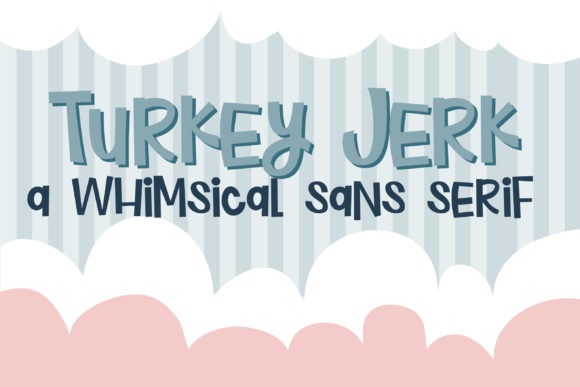
Inject some personality into your designs with Turkey Jerk Font, a whimsical sans serif font that oozes charm and playfulness. Crafted by the talented folks at Illustration Ink, this font is a breath of fresh air, perfect for adding a touch of fun and creativity to your projects.
Picture this: you're working on a poster for a local theater production, and you need a font that captures the lighthearted spirit of the show. Turkey Jerk Font steps up to the plate, delivering a cast of characters that dance and play across the page, inviting your audience to embark on a delightful journey. The playful curves and simple strokes create a visual symphony that's both captivating and easy on the eyes, ensuring your message shines through.
Or perhaps you're designing a children's book, and you want a font that sparks imagination and brings the story to life. Turkey Jerk Font is your trusty sidekick, transforming words into whimsical wonders that leap off the page. Its friendly and approachable demeanor makes it a perfect companion for tales of adventure, friendship, and magical lands.
The beauty of Turkey Jerk Font lies in its versatility. It's not just confined to posters and children's books; it's a font that thrives in diverse environments. Whether you're creating social media graphics, website designs, or eye-catching logos, Turkey Jerk Font seamlessly adapts, adding its unique charm to every project.
So, dear design enthusiast, let Turkey Jerk Font be your muse, your creative partner, your font of inspiration. Its playful spirit and effortless readability make it the perfect choice for designers who want to add a touch of whimsy and personality to their work. Embrace the joy of Turkey Jerk Font, and watch your designs come alive with laughter, creativity, and boundless imagination.